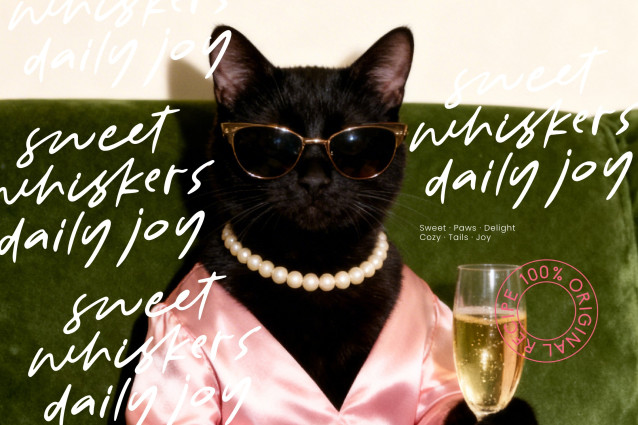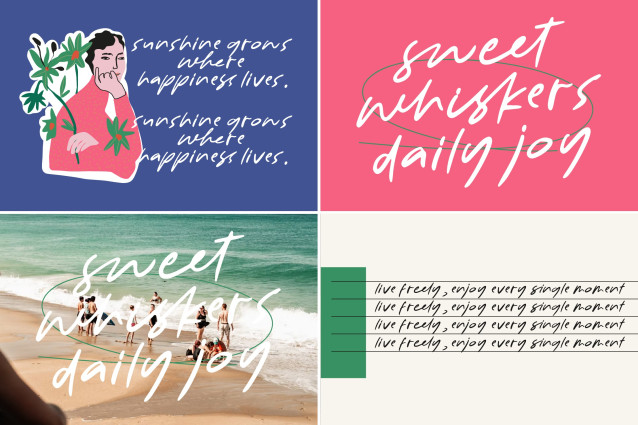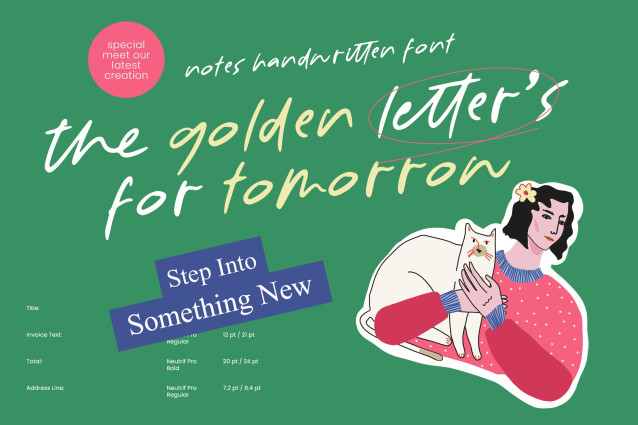
Golden Tomorrow – Notes Handwritten Font
Elevate your creative vision with the organic charm of Golden Tomorrow – Notes Handwritten Font, a typeface designed to bring an authentic, personal touch to every design. This modern script offers a fluid, natural rhythm that mimics real ink on paper, making it an essential tool for designers seeking a contemporary yet approachable aesthetic. By bridging the gap between digital precision and handcrafted warmth, Golden Tomorrow – Notes Handwritten Font ensures your message resonates with a genuine, human feel.
Expand your global reach effortlessly with a typeface built for the modern world. With its extensive multilingual support, Golden Tomorrow – Notes Handwritten Font adapts seamlessly across global markets, making it incredibly versatile for international projects. Whether you are crafting content for a local audience or a worldwide campaign, the comprehensive character set of Golden Tomorrow – Notes Handwritten Font maintains visual consistency and typographic excellence across diverse languages and regions.